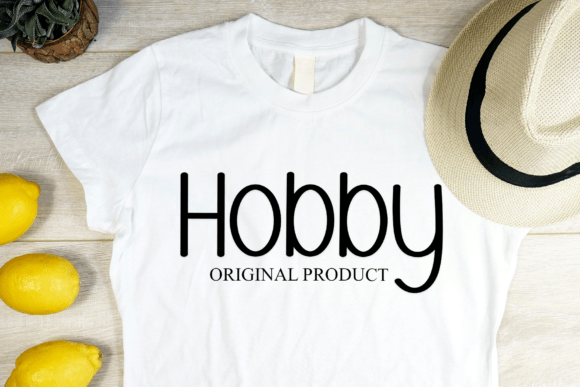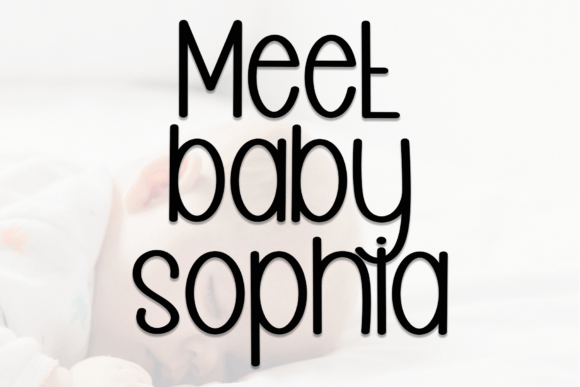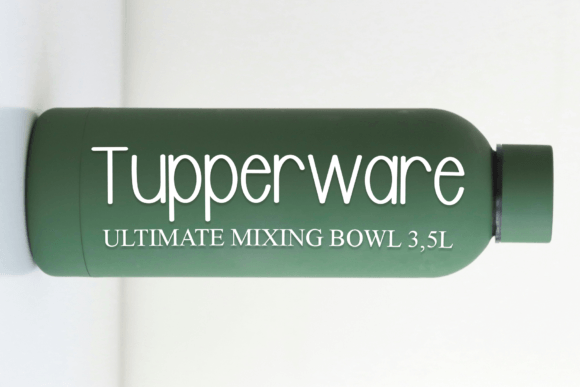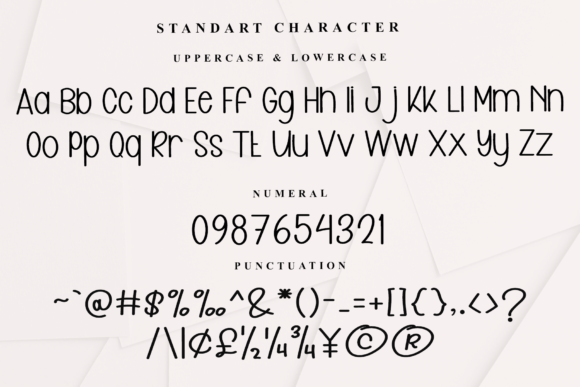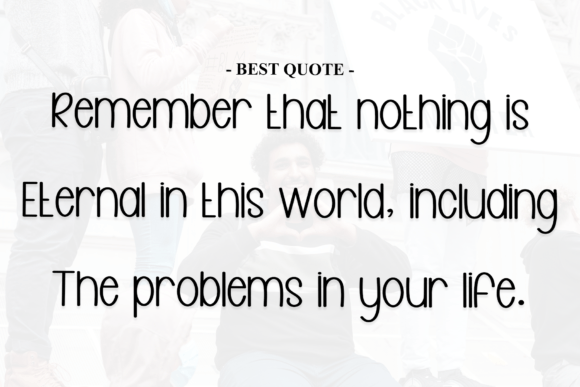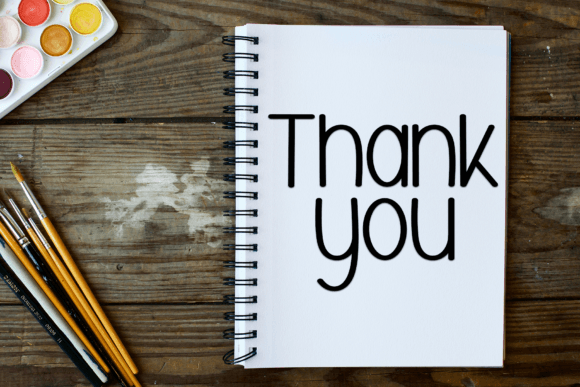
Discover the Timeless Elegance of Boho Baby Font
Have you ever stared at a blank page, waiting for inspiration to strike? For many creatives, it’s that moment of blankness that sparks the most innovative ideas. And what happens when that spark turns into a design that’s truly special? You’ll want a font that can bring your vision to life, and that’s exactly where the Boho Baby Font comes in.
This delicate, elegant, and timeless font is perfect for designers who crave a unique and sophisticated look. With its beautiful and well-balanced characters, the Boho Baby Font is versatile enough to match a wide range of designs, from elegant wedding invitations to whimsical children’s books. Plus, with its PUA coding, you’ll have easy access to all the amazing glyphs and ligatures that make this font truly special.
Key Features of Boho Baby Font
- Unique Characteristics: Whimsical, elegant, and feminine design, perfect for baby-related products and designs.
- Font Style: Script, making it ideal for adding a touch of personality to baby-related designs, such as nursery decor, baby clothing, and more.
Designer Review: Boho Baby Font
Overall, I think Boho Baby Font is a cute and playful font that can add a nice touch to various designs. Here are some things that work well: ✨
- Unique charm: The font has a distinct, whimsical feel that can bring a sense of personality to your design.
- Variety of weights: The font comes in multiple weights, which allows for flexibility in how you use it in your designs.
- Handwritten feel: The font’s handwritten style can add a touch of warmth and human touch to your design.
- Limited legibility: At smaller font sizes, the font can become difficult to read, which may limit its use in certain contexts.
- Lack of consistency: The font’s irregularities can sometimes make it challenging to use in professional or formal settings.
Overall, I think Boho Baby Font is a great choice for casual designs or projects that require a playful, handwritten feel. While it may not be the best fit for formal or high-legibility designs, it’s a cute and charming font that can add a lot of personality to your work.
For best results, use the font in conjunction with other bohemian-inspired elements, such as floral patterns and distressed textures.
Boho Baby Font is perfect for:
- Baby shower invitations and decorations
- Children’s party invitations and banners
- Home decor and wall art
- Stationery and gift tags